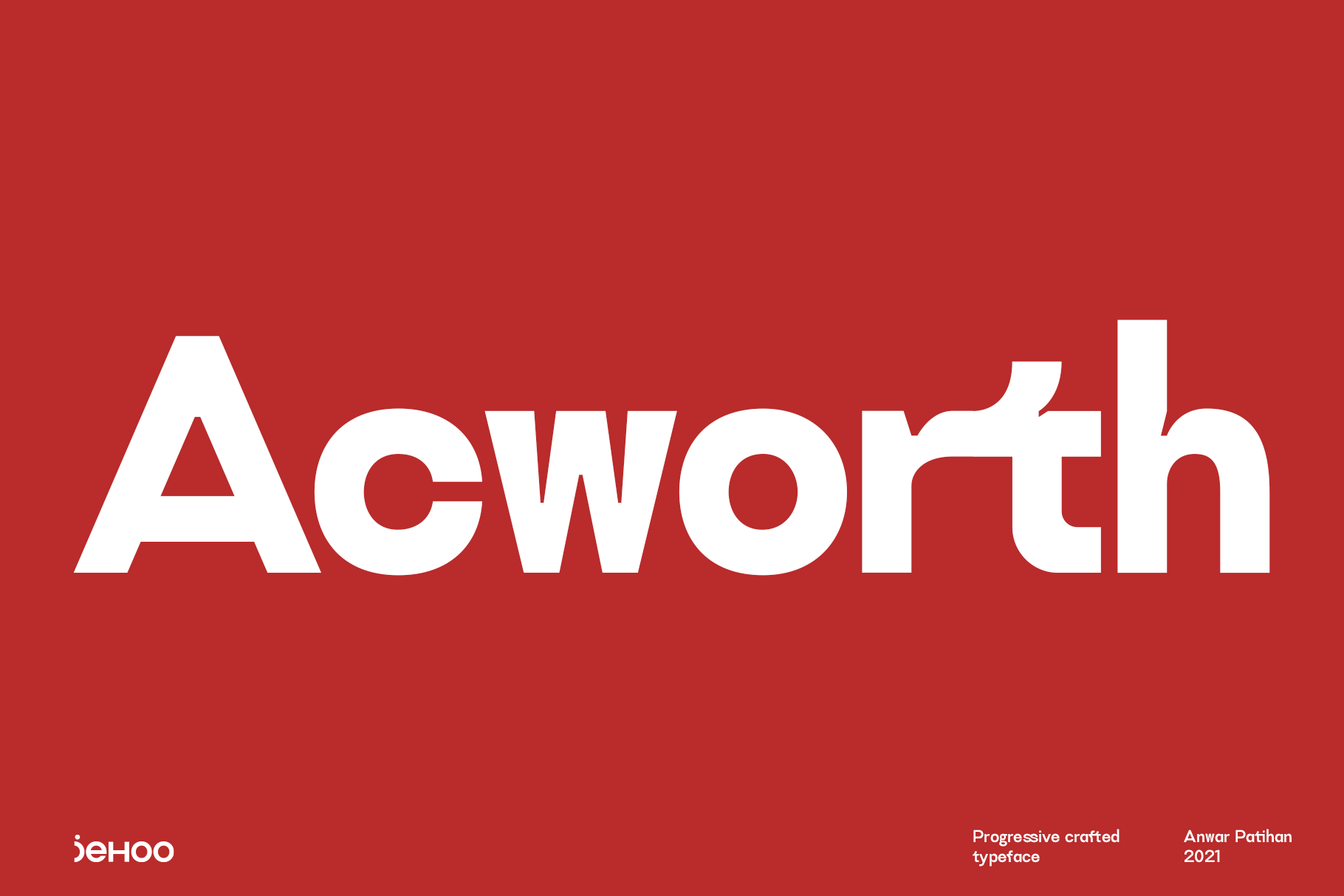
Acworth is a contemporary progressive typeface that explores mechanical robustness and dynamism. Inspired by the advancement of fast-moving technology culture. The characters have an ink trap that makes Acworth very legible and a standout feature, thereby creating a modern versatile form.
Making it usable for editorial, graphic design, web look, quotes or as a logo.
Has 4 weights and 1 outline style having alternate features on the characters a, f, g, y and equipped with ligatures.